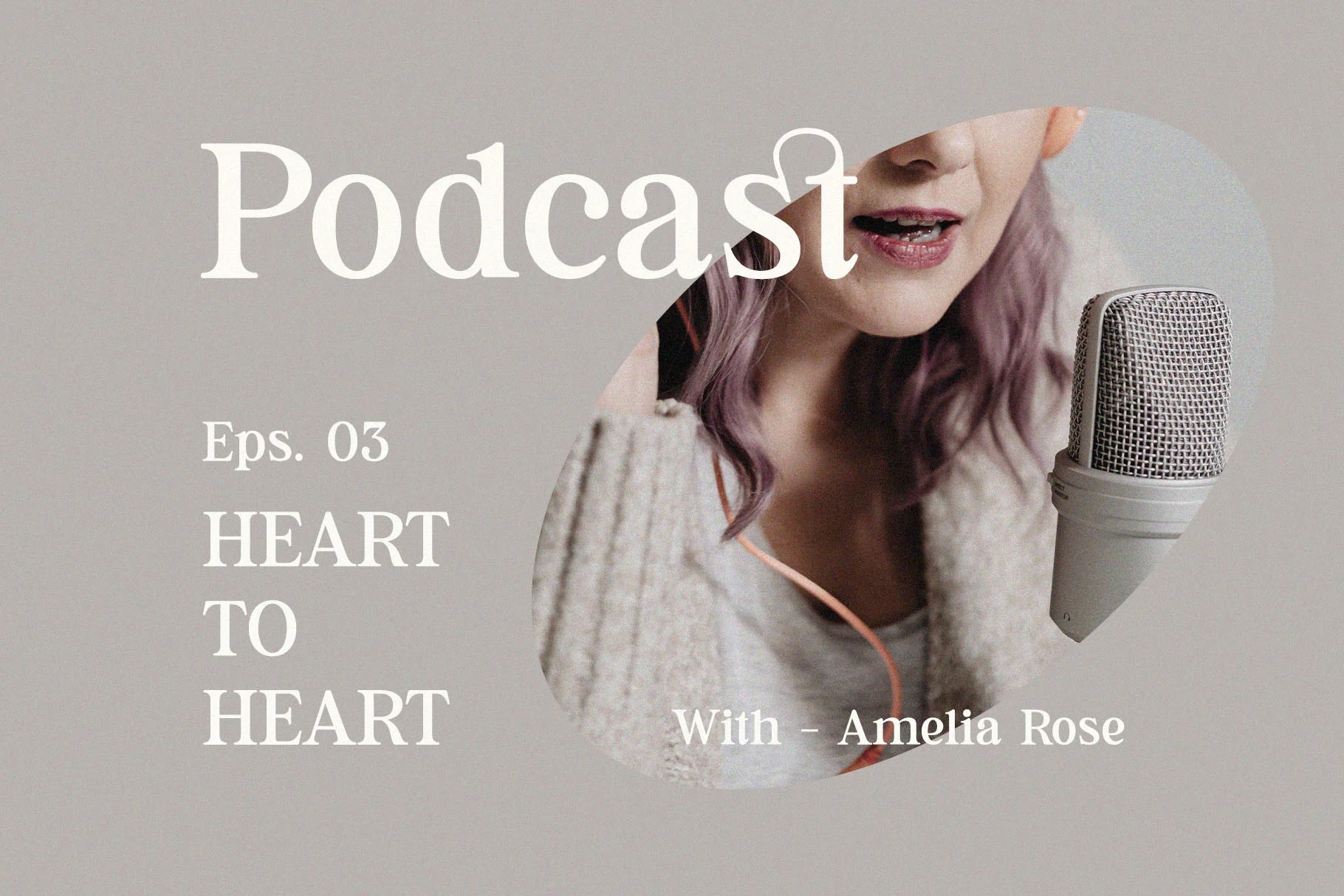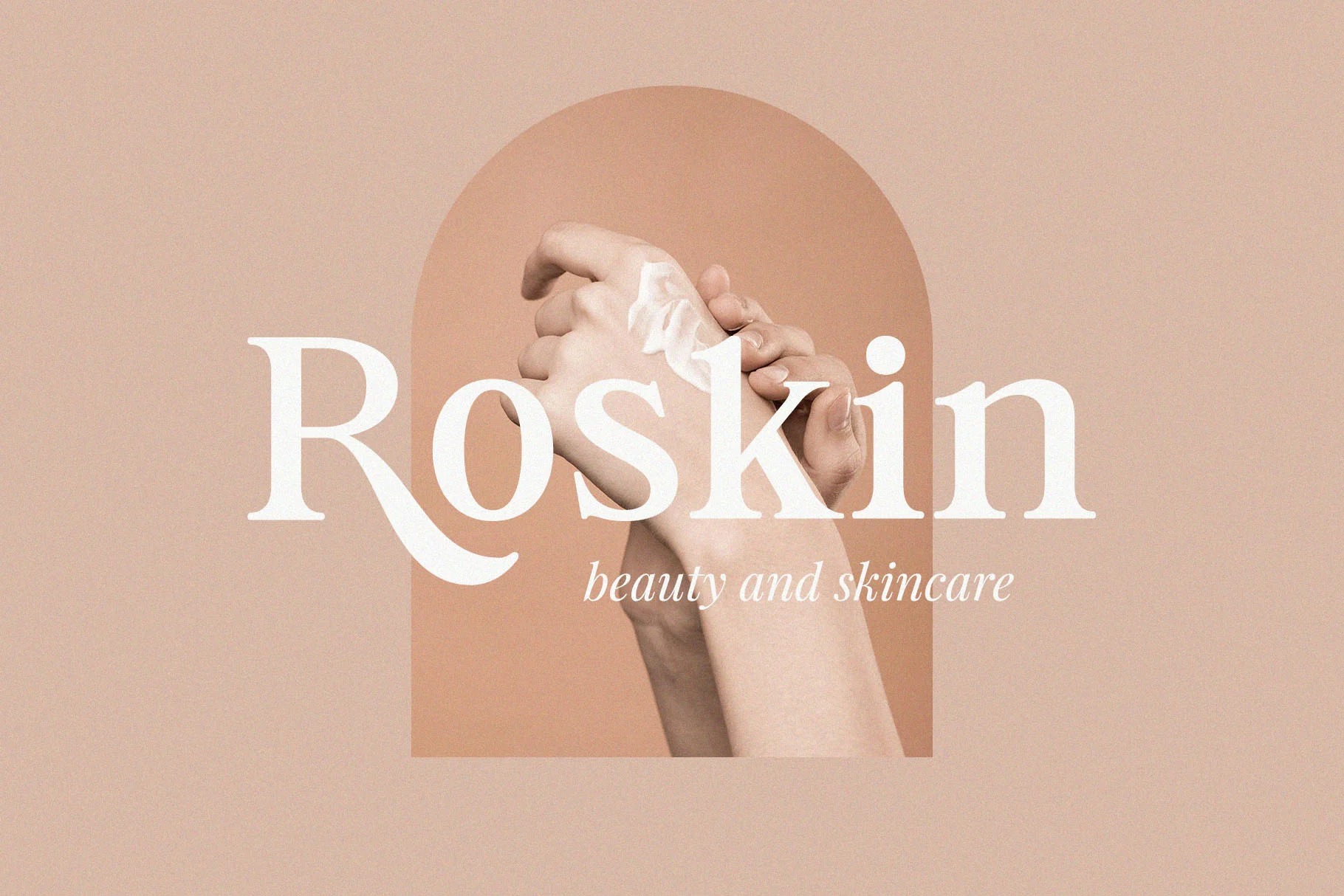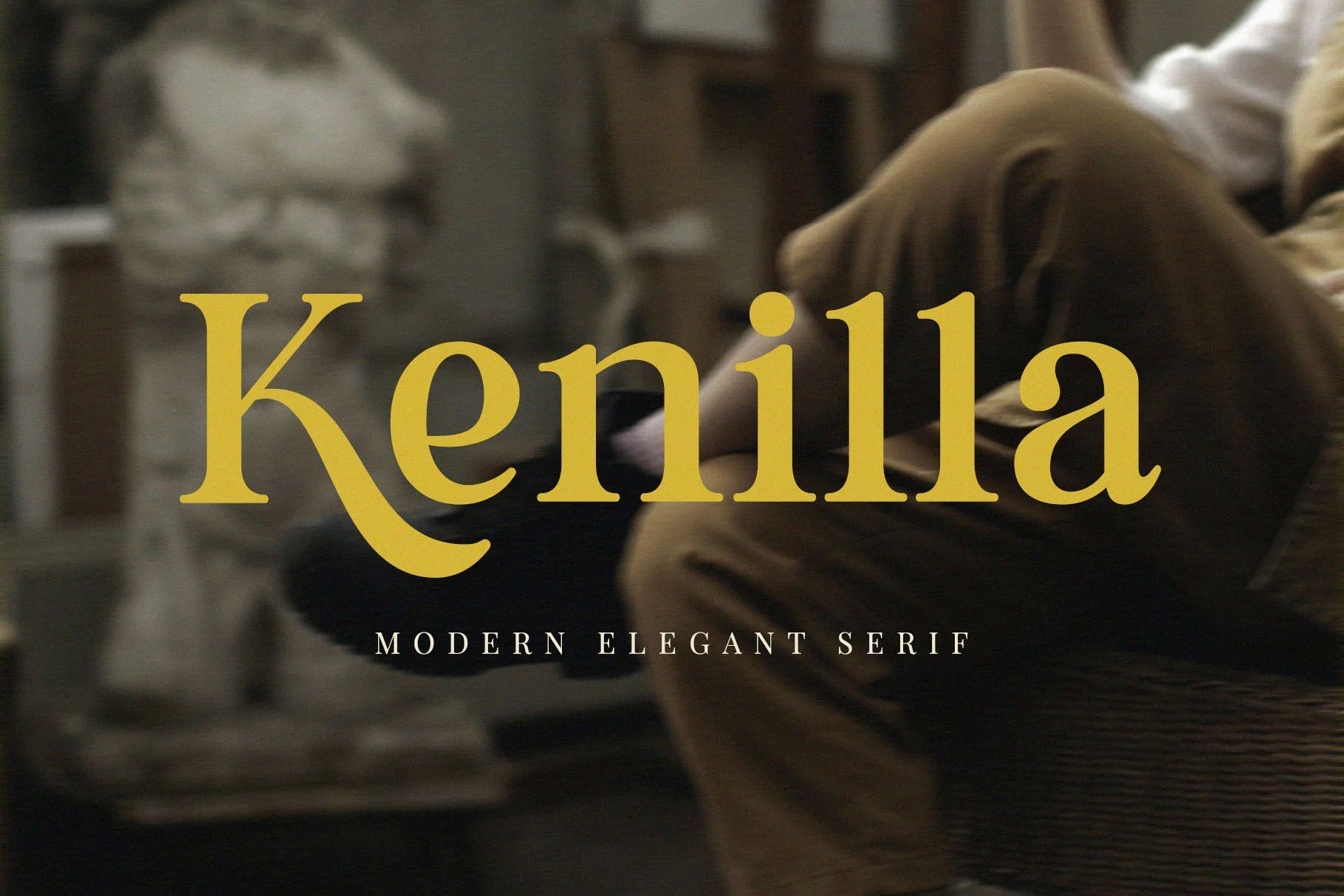
Kenilla Serif Font
It’s a brand new serif with a bonus script for a fun built-in pairing! Made from font designer named BrandSemut. Kenilla is a modern and elegant typeface, best used as a display for headings, logos, branding, magazines, product packaging and invitations. Kenilla come with clean lines and smooth curves give any project an extra touch of class.